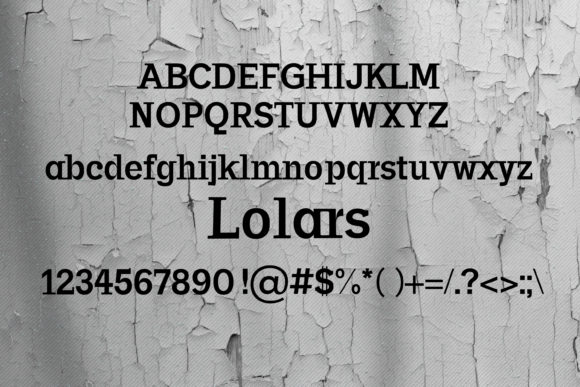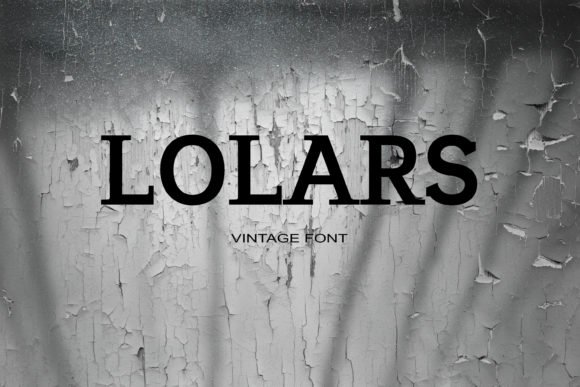
Introduction to Lolars Font
Lolars is a unique and bold serif font that will turn any design idea into an eye-catcher.
Lolars is a unique and bold serif font that will turn any design idea into an eye-catcher!
Why Choose Lolars Font?
Lolars Font offers exceptional quality and versatility, making it a valuable addition to your design toolkit. Whether you’re creating for personal projects or commercial use, Lolars Font delivers professional results.